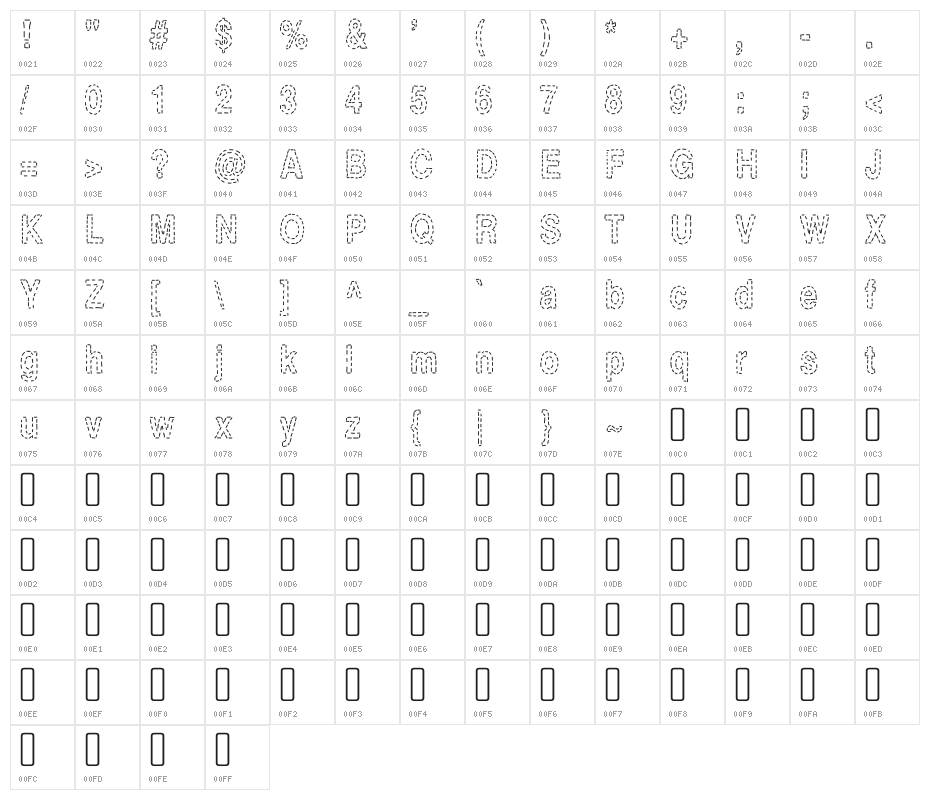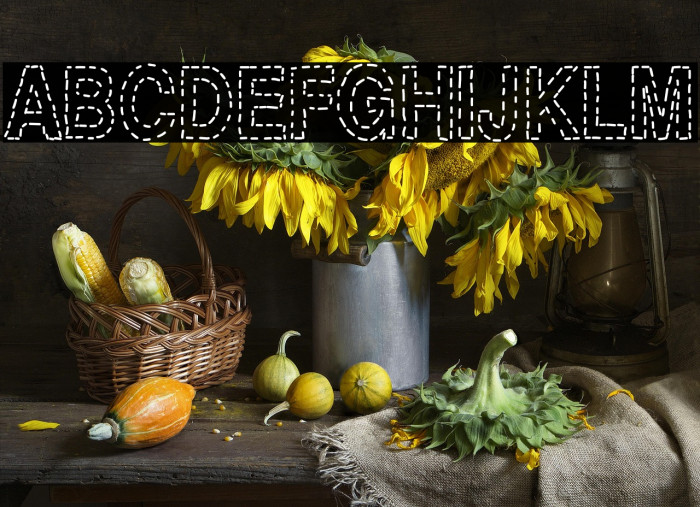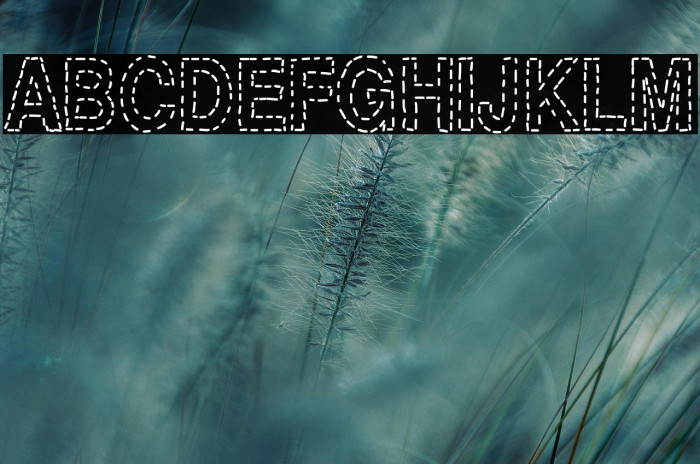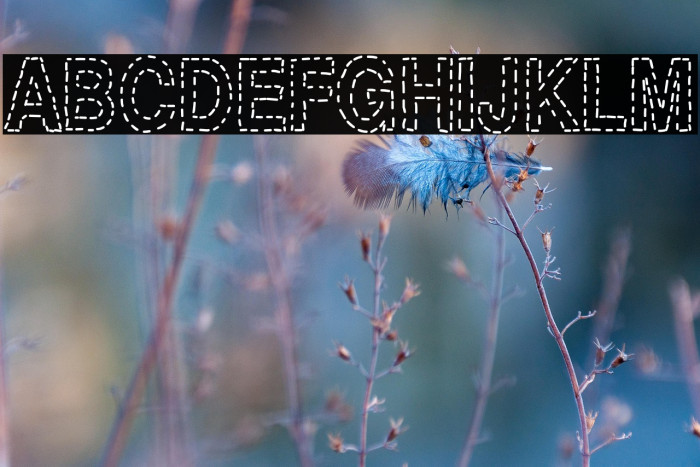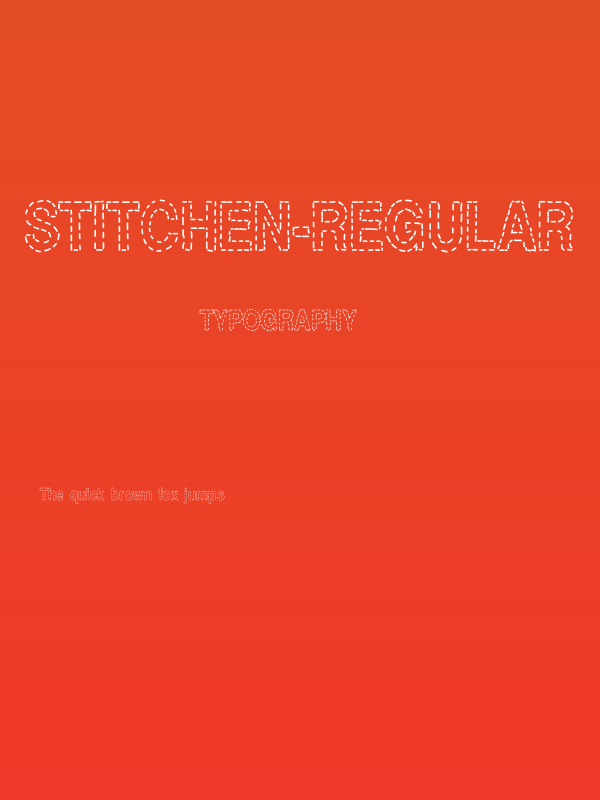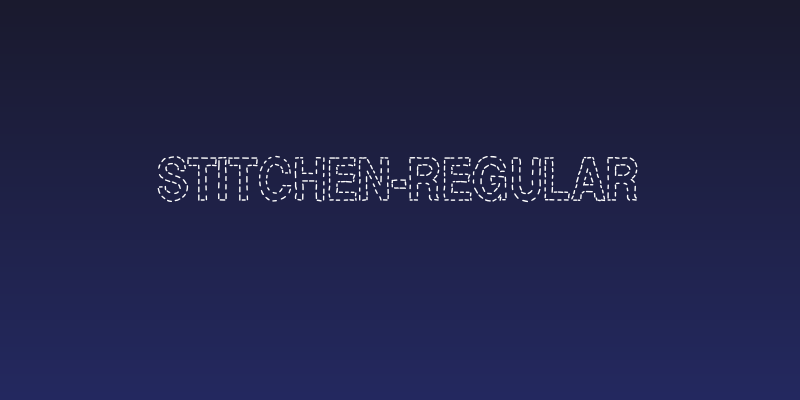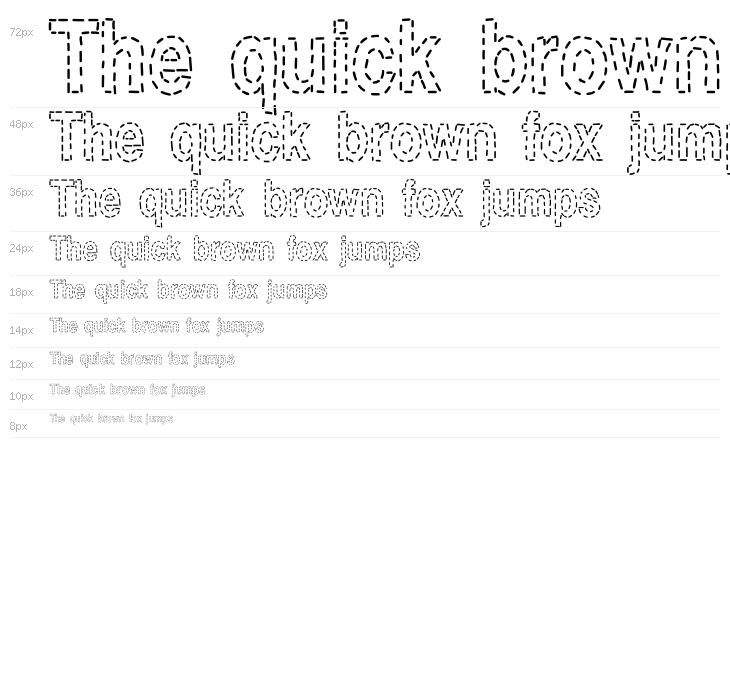
Stitchen-Regular Font
Stitchen-Regular Description
This font features a unique stitched pattern, giving each character a handcrafted, textured appearance. The letters are outlined with a dashed line, resembling a sewing pattern, which adds a playful and creative touch. The uppercase and lowercase letters maintain a consistent style, with rounded edges and uniform spacing. The numbers and special characters follow the same stitched theme, ensuring a cohesive look across all elements. This font is ideal for projects that require a crafty, DIY aesthetic, such as sewing blogs, handmade product labels, or creative invitations.
| Use Case | Headlines, Logos, Creative Invitations |
| Proposed Projects | Ideal for sewing blogs, handmade product labels, creative invitations, and DIY-themed projects. |